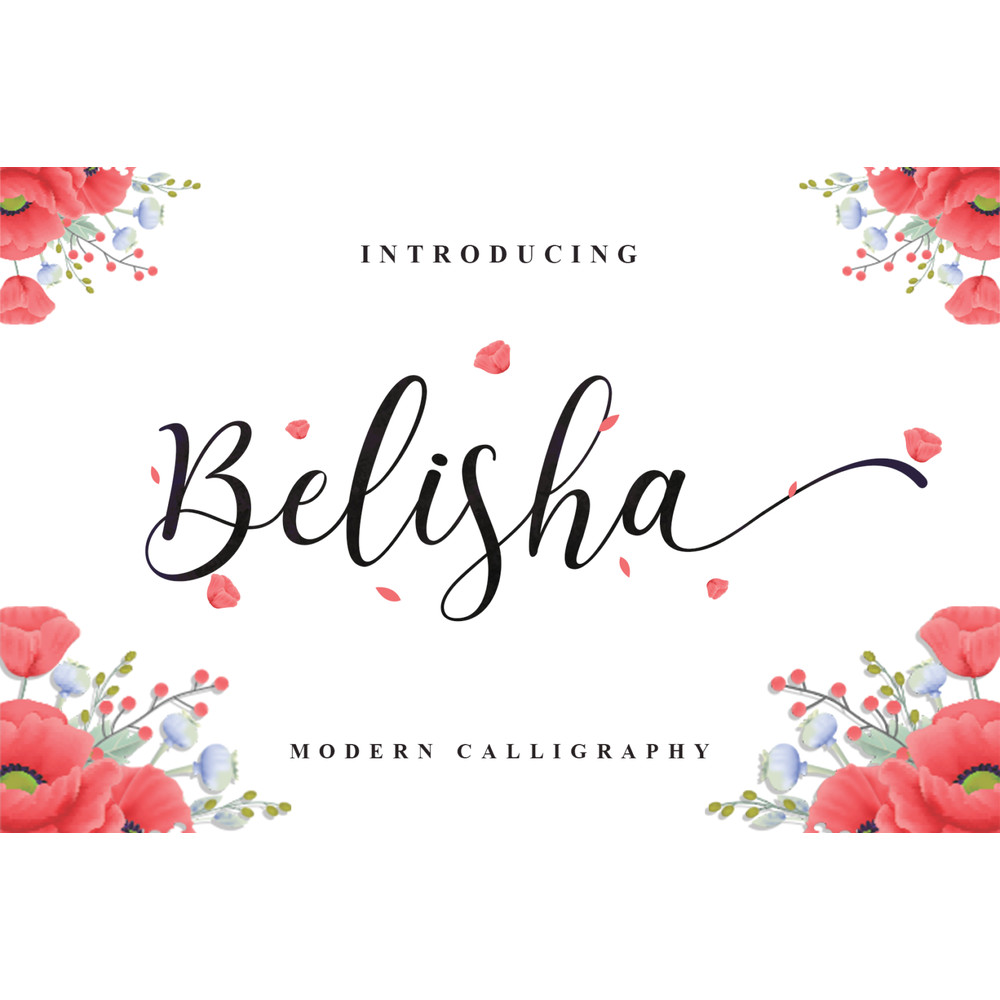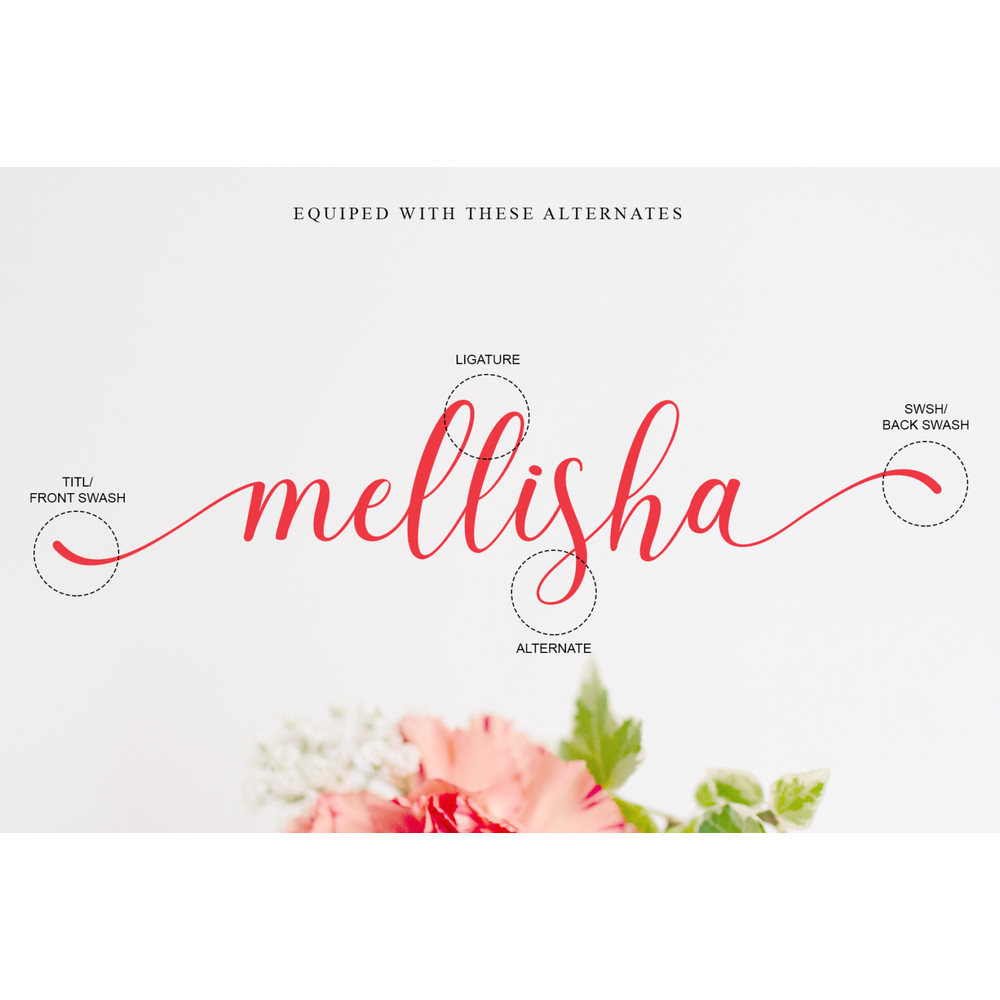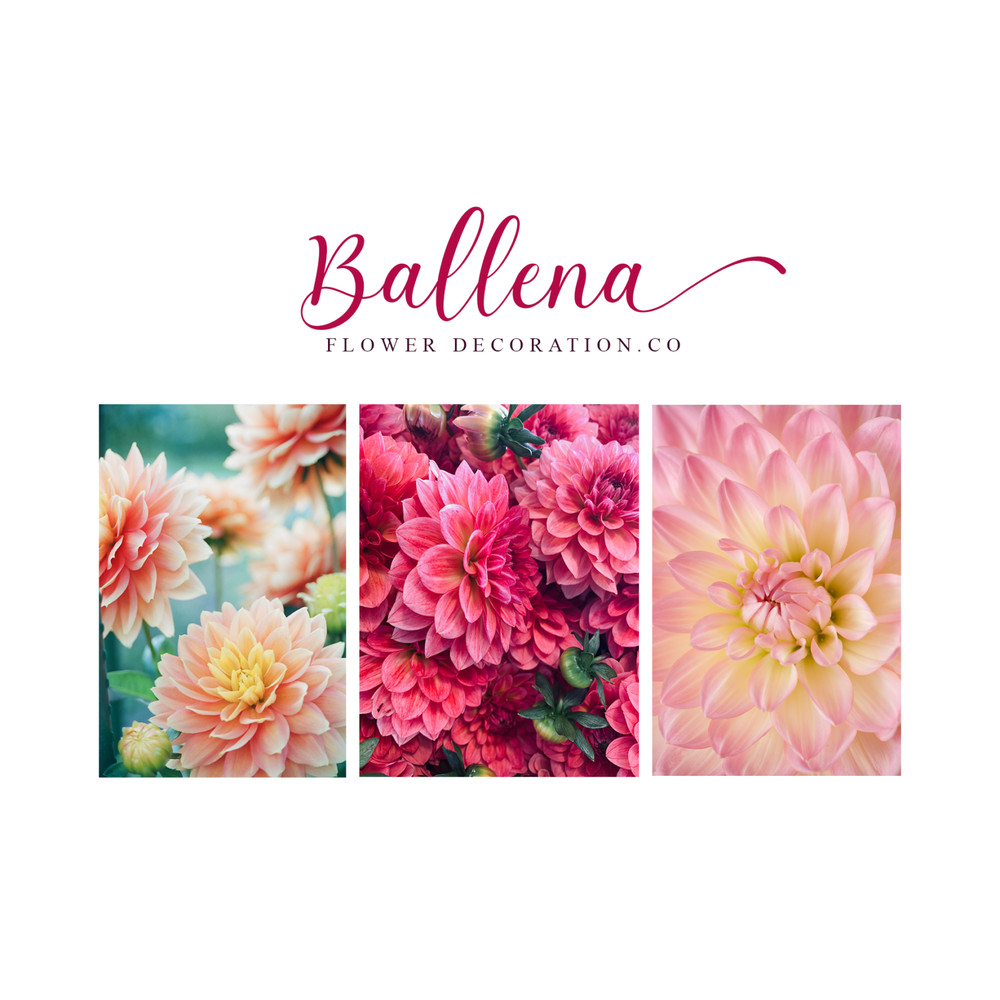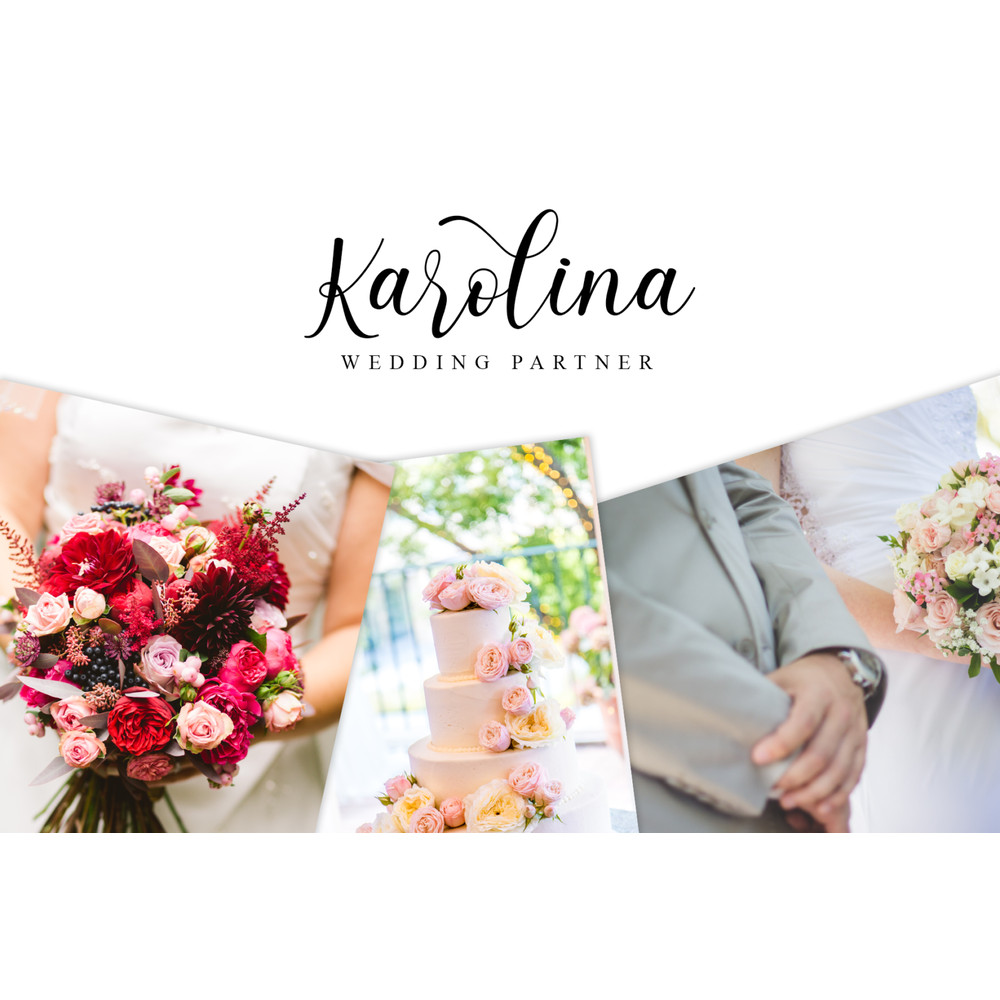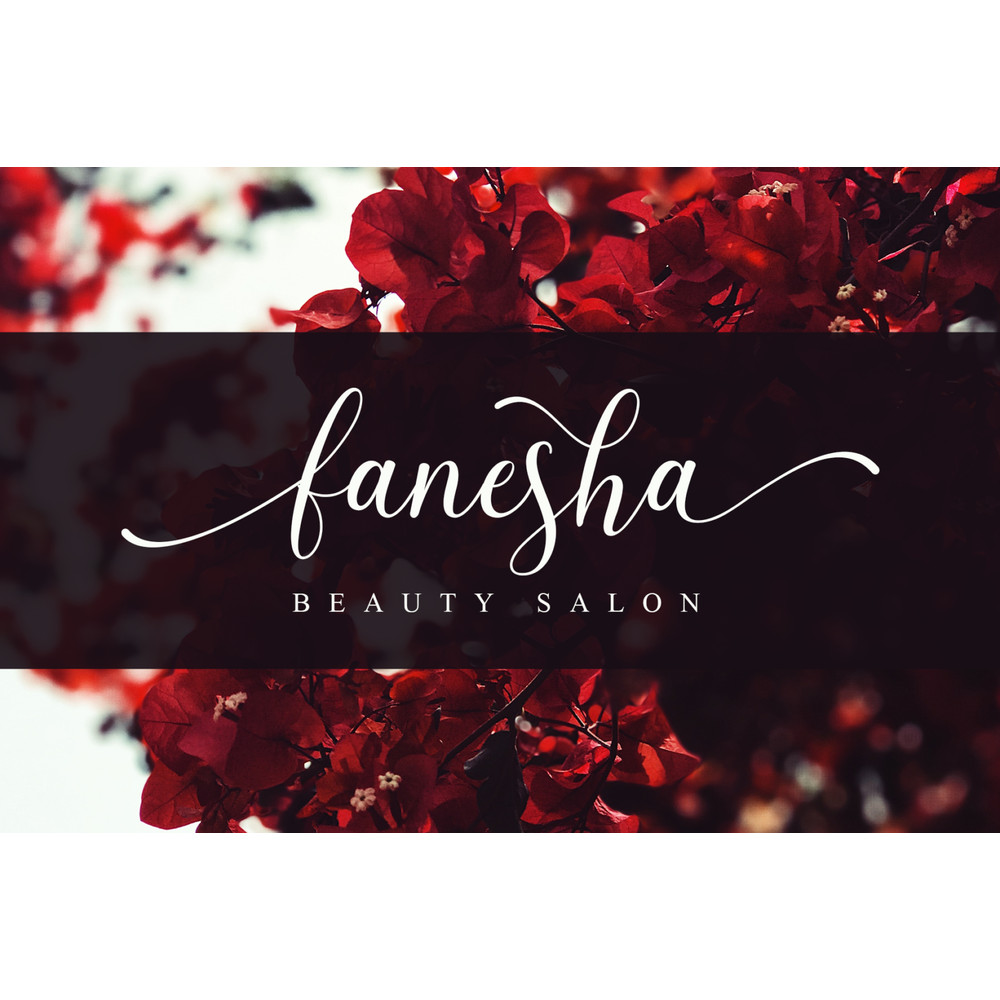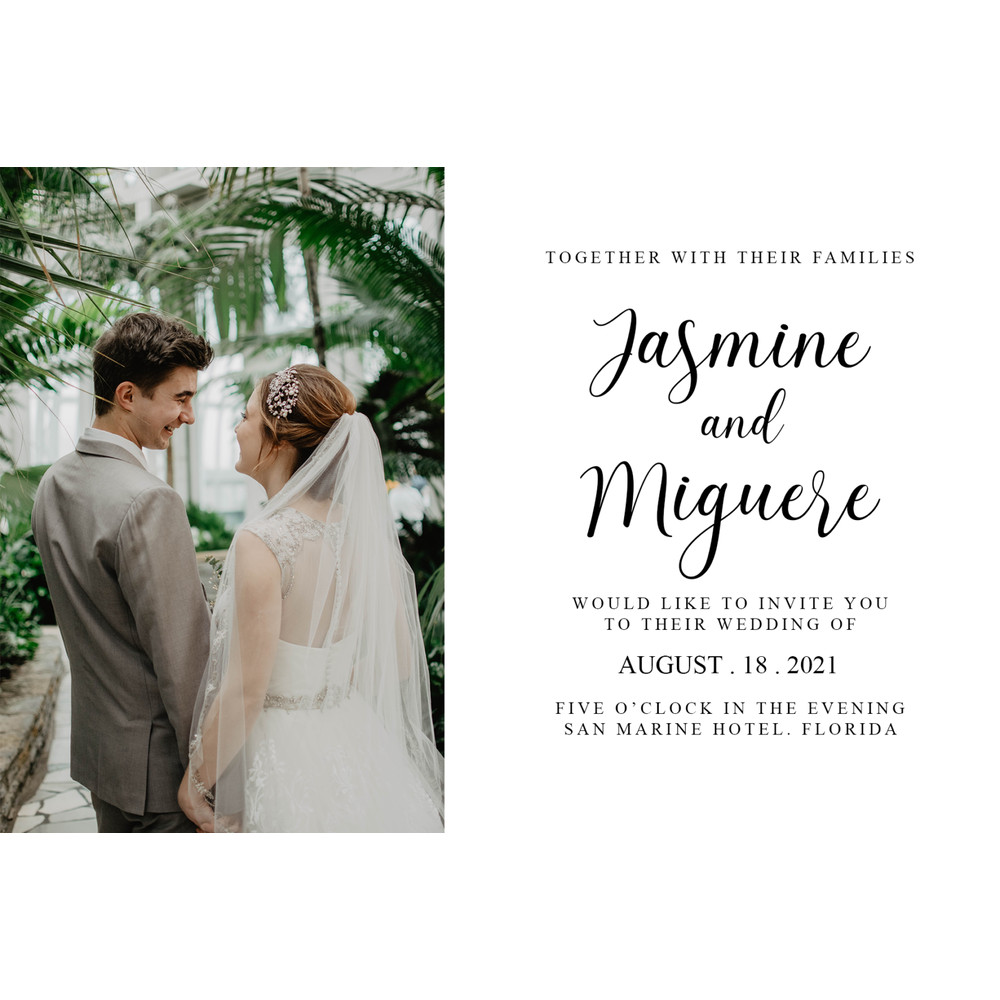
Belisha is a modern beautiful typeface. It’s perfect for feminine, elegant, and luxurious designs. It has a fresh and modern look that can be used for greeting cards, wedding designs, branding materials, quotes, posters, and much more.